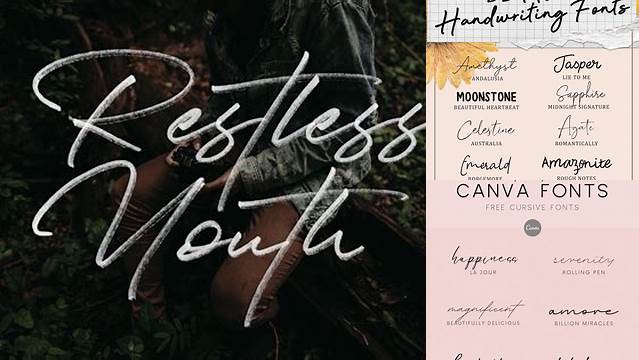
Free Cursive Fonts: Elegant Handwriting Options
Hey there, font fanatics! Ever looked at a beautifully written piece of text and just felt… something? Maybe it's a sense of elegance, a touch of nostalgia, or just plain, old-fashioned coolness. Well, if you're nodding along, then you're probably a fan of cursive handwriting fonts! And guess what? You don't need to break the bank to get your hands on some stunning ones. This guide is all about the best cursive handwriting fonts free, and how you can use them to add a dash of flair to your projects. From sprucing up your social media graphics to creating personalized wedding invitations, these fonts have got you covered. So, grab your virtual pen and paper, and let's dive in!
Why Cursive Handwriting Fonts Are Still Awesome
Okay, so in a world dominated by sleek sans-serifs and minimalist designs, why are cursive fonts still so popular? Well, for starters, they bring a unique human touch to your work. They're like a digital handshake, adding a layer of personality that's hard to achieve with standard fonts. Think about it: a well-chosen cursive font can instantly elevate a design, making it feel more sophisticated, personal, or even romantic. They can evoke feelings of nostalgia, reminding us of handwritten letters, elegant invitations, and the art of calligraphy. In a sea of digital sameness, cursive fonts offer a way to stand out, to inject a bit of individuality into your projects. Cursive fonts can be especially effective in design, helping to create a friendly and inviting atmosphere. They can soften the look of a design and make it feel more approachable, which is great for brands looking to connect with their audience on a more personal level.
Moreover, cursive fonts are perfect for specific types of projects. Wedding invitations, greeting cards, and other celebratory materials benefit greatly from the elegance of a well-designed cursive font. They can also be used for branding, logos, and social media graphics to make the brand stand out. The versatility of these fonts is a major advantage, as they can be adapted to various design styles, from vintage to modern. They're a great way to create a brand that feels both classic and contemporary. And let's not forget the artistic appeal. Cursive fonts can be works of art in their own right, with intricate details and flowing letterforms. They offer a chance to explore the beauty of typography and to appreciate the artistry of font design. The right cursive font can transform your project from ordinary to extraordinary. So, whether you're a designer, a blogger, or just someone who loves beautiful fonts, there's a cursive font out there for you. So, let's dive into the details and explore some awesome free options!
Top Free Cursive Handwriting Fonts to Download
Alright, guys, the moment we've all been waiting for: the list of top free cursive handwriting fonts! I've handpicked some of the best options out there, covering a range of styles to suit your needs. Each of these fonts is available for free download, making them perfect for personal and commercial use. Remember to always check the specific license for each font before using it, but for the most part, these are all good to go. Let's get started!
1. Dancing Script: The Classic Choice
If you're after a classic, elegant cursive font, Dancing Script is a fantastic choice. It's one of the most popular free cursive fonts out there, and for good reason. Its flowing letterforms and slightly bouncy baseline give it a friendly and approachable vibe, making it ideal for various projects. This font is perfect for wedding invitations, greeting cards, and other designs that need a touch of sophistication without being overly formal. Dancing Script is also great for logos and branding, as it adds a personal touch that's hard to resist. Its readability is another major advantage, as the letters are clear and easy to distinguish, even at smaller sizes. The versatility of Dancing Script makes it a go-to choice for designers, bloggers, and anyone looking to add a touch of elegance to their work. It is a versatile font that works well in a variety of contexts. So, whether you're creating invitations, crafting social media graphics, or designing a website, Dancing Script can add a touch of elegance and personality to your project. You can download Dancing Script from Google Fonts. It is a great choice for adding a touch of elegance and personality to your designs!
2. Great Vibes: For a Touch of Luxury
Want to add a touch of luxury and sophistication to your designs? Great Vibes is the font for you. It's a beautifully designed cursive font with a vintage feel, perfect for projects that need a touch of old-world charm. The elegant swashes and flowing lines of Great Vibes make it ideal for headings, titles, and other display text. It's also great for creating a premium look for your branding. If you're working on a project that needs a high-end feel, Great Vibes will undoubtedly elevate the overall aesthetic. It is perfect for those projects where you want to exude a sense of timeless elegance. Imagine using this font for a high-end product's branding or elegant event invitations. The sophistication of Great Vibes makes it ideal for projects where you want to make a statement. With its classic charm, Great Vibes is a fantastic choice for adding a touch of luxury and sophistication to your designs. It has a slightly more formal feel than Dancing Script, making it a great choice for projects that need a touch of sophistication. This font is an excellent choice for anyone looking to elevate their designs!
3. Caveat: A Modern Approach
Looking for a cursive font with a more modern twist? Caveat is an excellent choice. It offers a more contemporary take on cursive fonts, with clean lines and a slightly more upright stance. Caveat is perfect for a wide range of projects, from website headings to social media graphics. It's also a great option for adding a personal touch to your branding. This font is incredibly versatile, as it complements both classic and modern design styles. The readability of Caveat is another major advantage. Its clear letterforms make it easy to read, even at smaller sizes. This is particularly important for website headings and other areas where text needs to be easily accessible. If you're after a font that's both stylish and functional, Caveat is the perfect choice. You'll find it is not only beautiful but also adaptable, making it a versatile tool for different design purposes. Caveat will become one of your favorite cursive fonts for various projects. You'll quickly discover how it can enhance your designs. The balance of style and function makes it stand out, allowing you to create modern, engaging content.
4. Satisfy: Simple and Elegant
If you are seeking a simpler, yet equally elegant, cursive font, then Satisfy is an excellent selection. This font is designed with a clean and straightforward style that works wonderfully for numerous applications. Satisfy maintains a degree of classic charm while being extremely adaptable. It is well-suited for projects that demand a sense of grace without being overly elaborate. Whether you're composing a social media post, developing a blog header, or personalizing a card, this font delivers a refined appearance. The simplicity of Satisfy enables it to be easily incorporated into a variety of design styles, complementing both contemporary and traditional aesthetics. Its easy readability further enhances its usability. It is a versatile font that can be used across different platforms and formats. Its appeal lies in its straightforwardness, which makes it a dependable option for any design requiring a touch of elegance. It provides a clean look and is a very popular choice. With its uncomplicated yet sophisticated appeal, Satisfy is an excellent font for those looking to make a statement without being overwhelming.
5. Alex Brush: Artistic Flair
For those looking to add a touch of artistic flair to their designs, Alex Brush is a superb selection. This font is designed with a more fluid and expressive style, perfectly suited for projects that need a touch of artistic creativity. Alex Brush features elegant swashes and flowing lines that are ideal for headlines, titles, and any area where you desire a stylish display of text. It is particularly effective for branding projects, such as logos and social media graphics, enabling you to create a design that is both attractive and distinctive. The unique artistic qualities of Alex Brush make it a perfect option for designers seeking to make a statement. The font’s elegant curves add a touch of sophistication. It has an easy-to-read design that enables it to be used effectively in a range of sizes and platforms. The versatility of Alex Brush makes it suitable for a wide variety of design applications. It is a beautiful choice for any design requiring a touch of creative flair. It is an excellent way to inject a sense of artistry into your work!
How to Use Cursive Fonts in Your Designs
So, you've got your fonts downloaded – now what? Here are a few tips on how to effectively use cursive fonts in your designs:
- Use sparingly: Cursive fonts can be eye-catching, but using them too much can make your design look cluttered and difficult to read. Use them for headings, titles, or short phrases to add emphasis and visual interest.
- Pair wisely: Cursive fonts often work well with simple, clean sans-serif fonts. This contrast can create a balanced and visually appealing design. Avoid pairing cursive fonts with other ornate or overly decorative fonts.
- Consider readability: While cursive fonts are beautiful, some can be difficult to read, especially at smaller sizes. Always ensure your cursive font is legible before using it in a project. Test it out at different sizes and in different contexts.
- Choose the right font for the project: The style of your cursive font should match the tone and purpose of your project. For example, a formal cursive font would be appropriate for a wedding invitation, while a more playful font might be better for a children's book.
- Consider the context: Where will your design be viewed? On a website? In print? Make sure your font choice works well in the intended context. Pay attention to the color of the background. Dark backgrounds can make it hard to see a cursive font. Ensure the font works well on a variety of backgrounds and color palettes.
Where to Download Free Cursive Fonts
Alright, you're probably itching to get your hands on these fonts, right? Here are some great places to download free cursive fonts: The best place to find many of these free fonts is Google Fonts. It is a fantastic resource with a wide selection of fonts, including many of the ones mentioned above. Another option is to explore websites like Font Squirrel and DaFont. Be sure to check the license of each font before using it to ensure it is free for your intended use.
Conclusion: Get Creative!
So there you have it, guys! A rundown of some of the best cursive handwriting fonts free for you to use in your creative projects. Whether you're a seasoned designer or just starting out, these fonts are a fantastic way to add a touch of elegance, personality, and flair to your work. Remember to have fun, experiment with different fonts, and find the perfect cursive font to bring your vision to life. Happy designing!